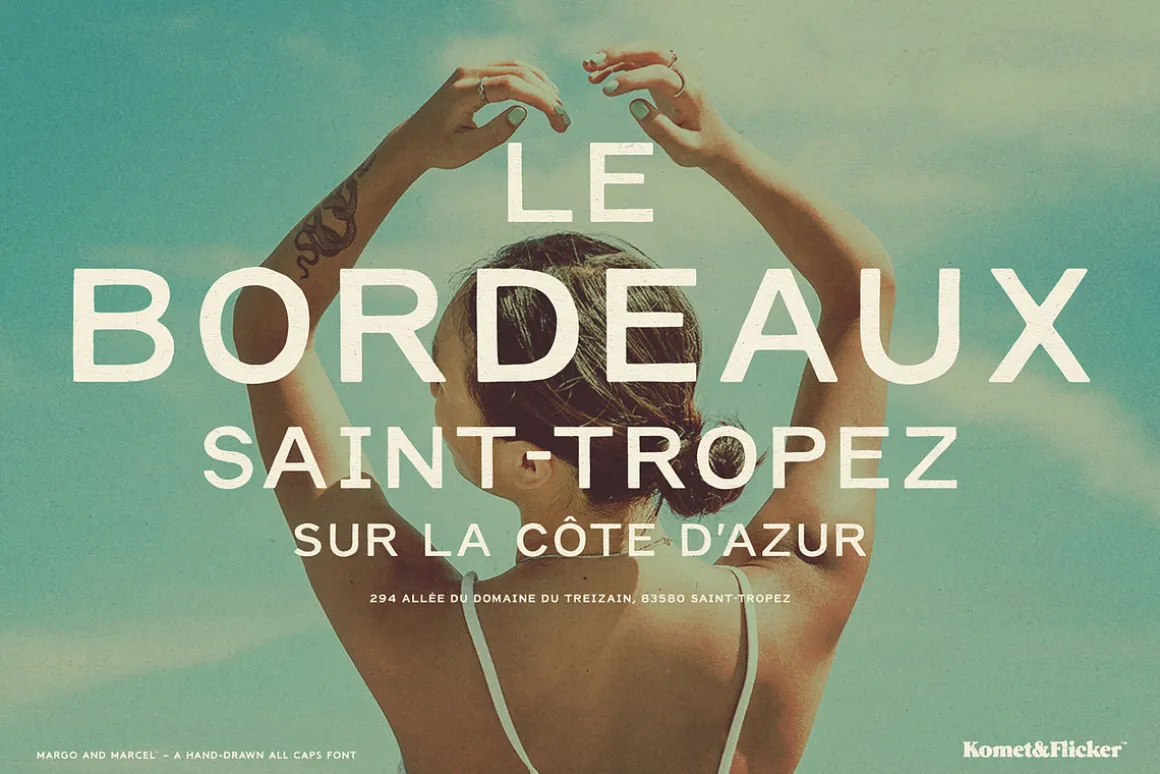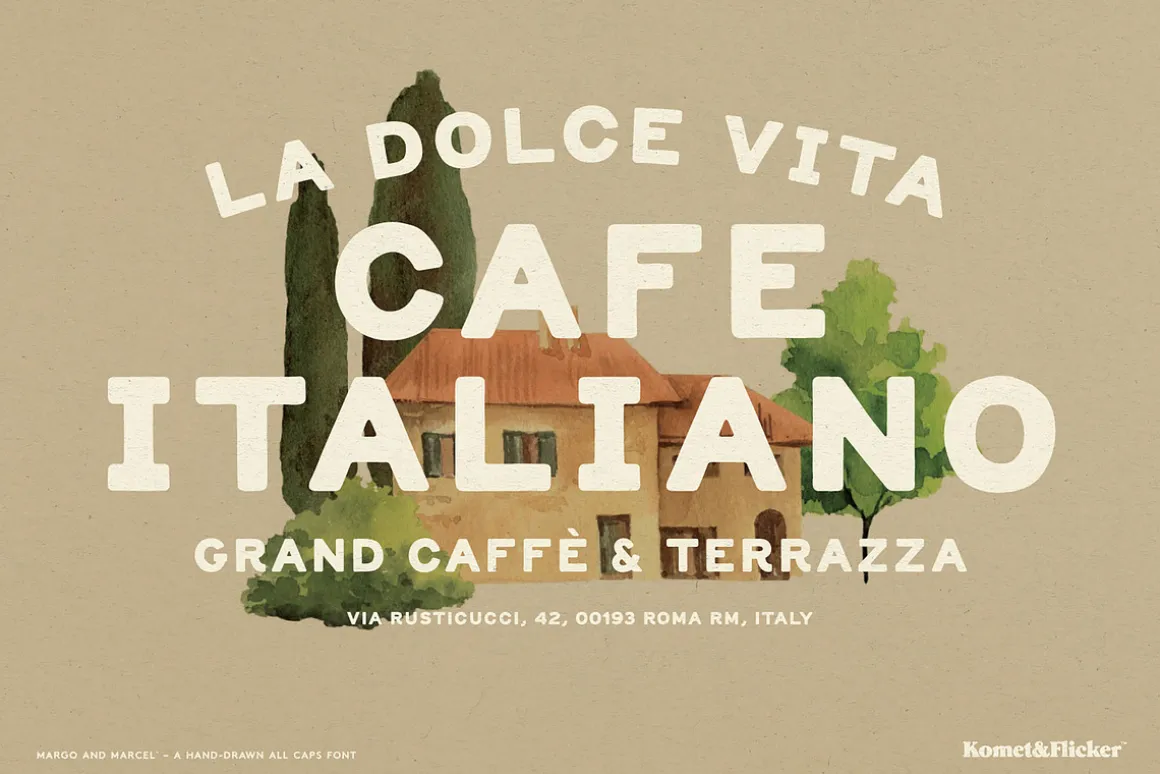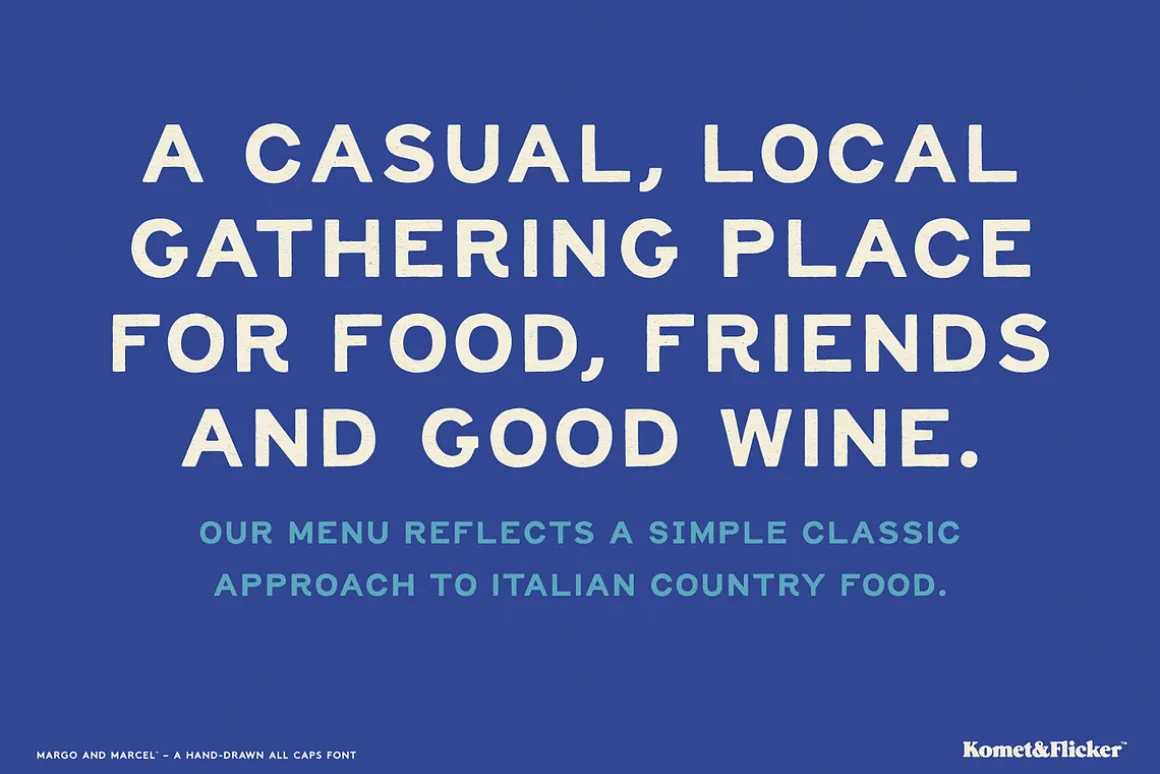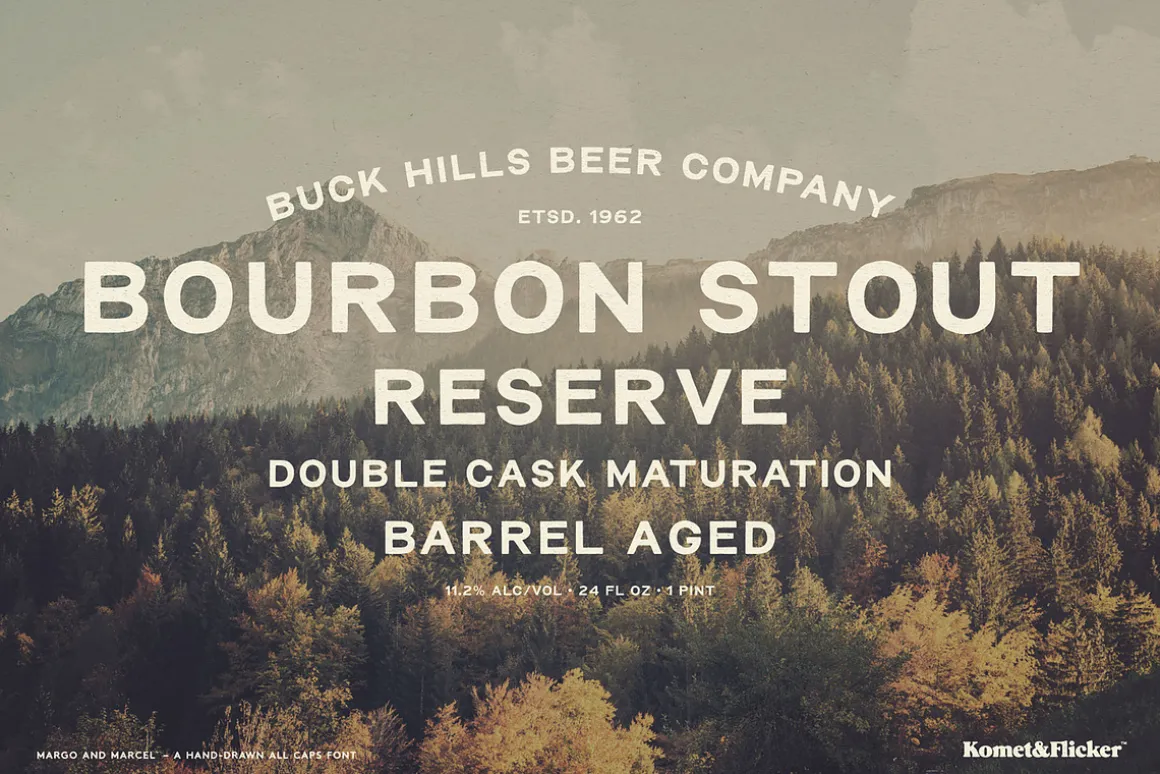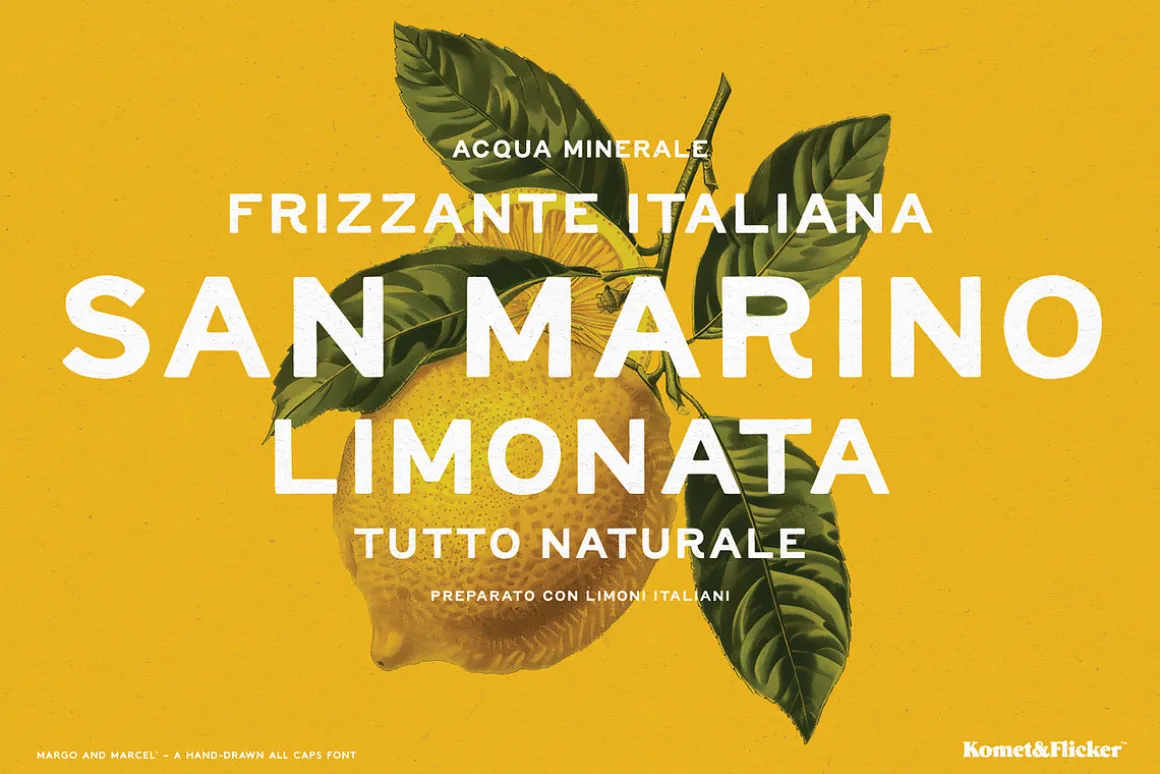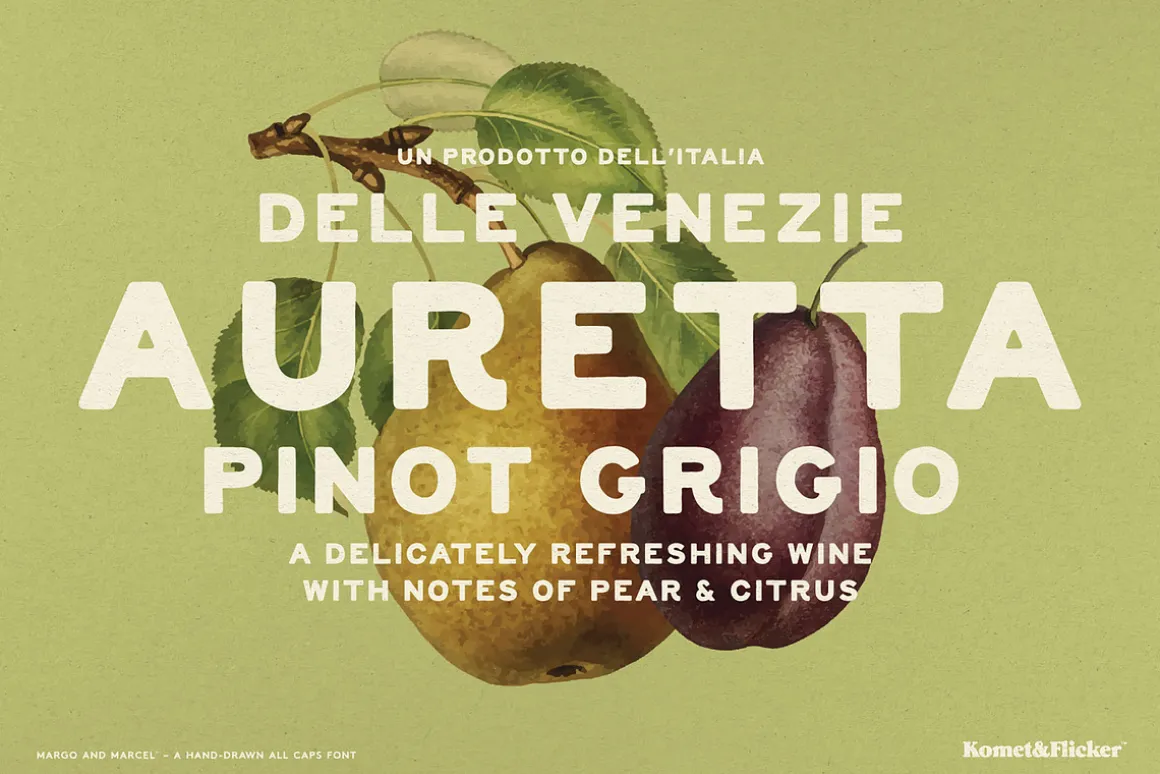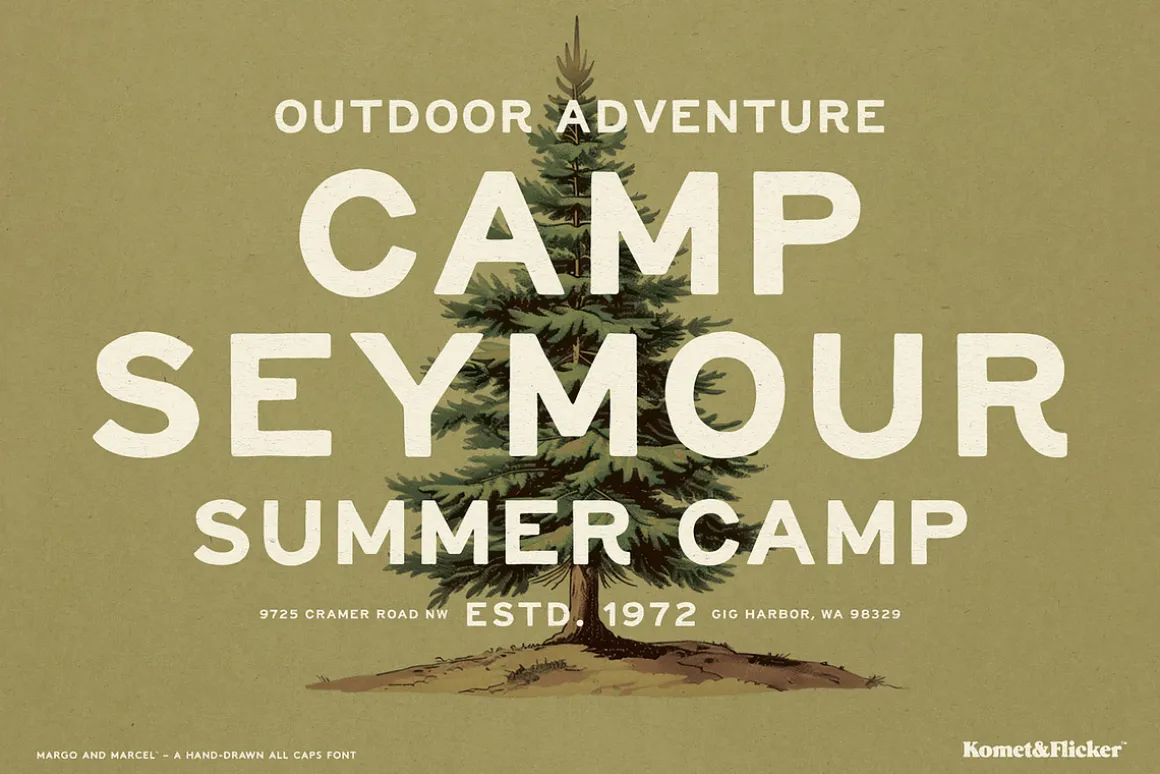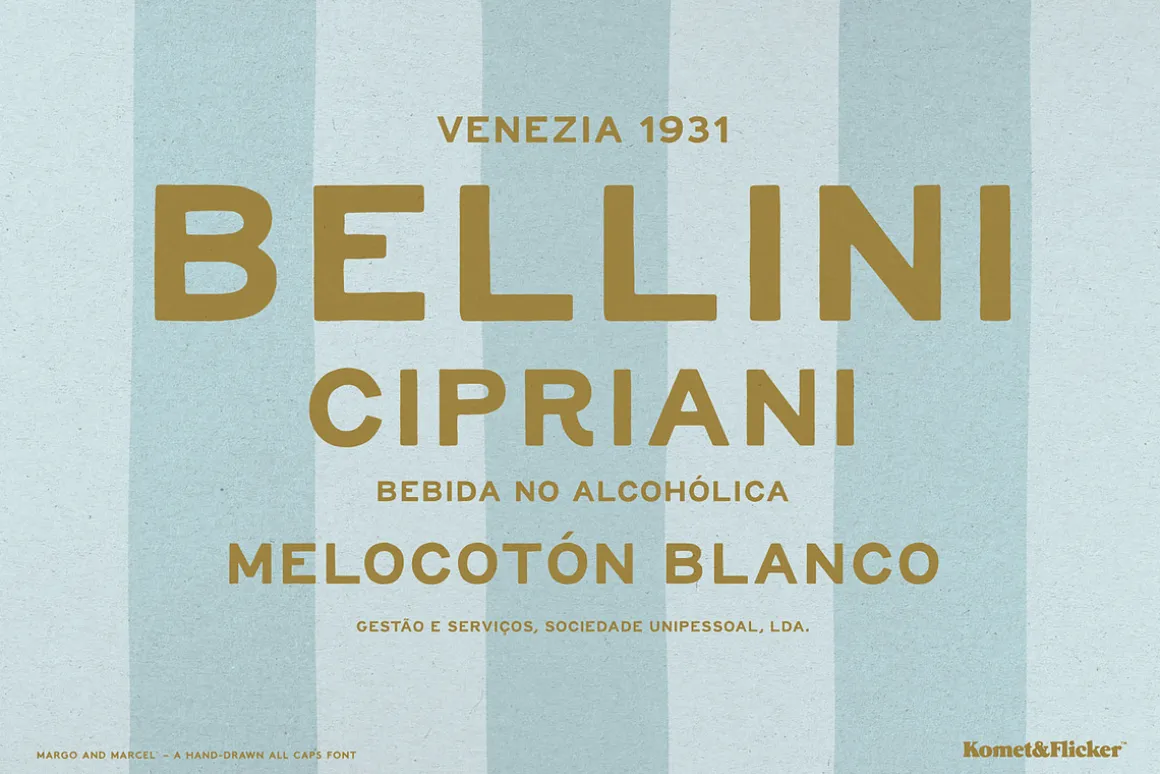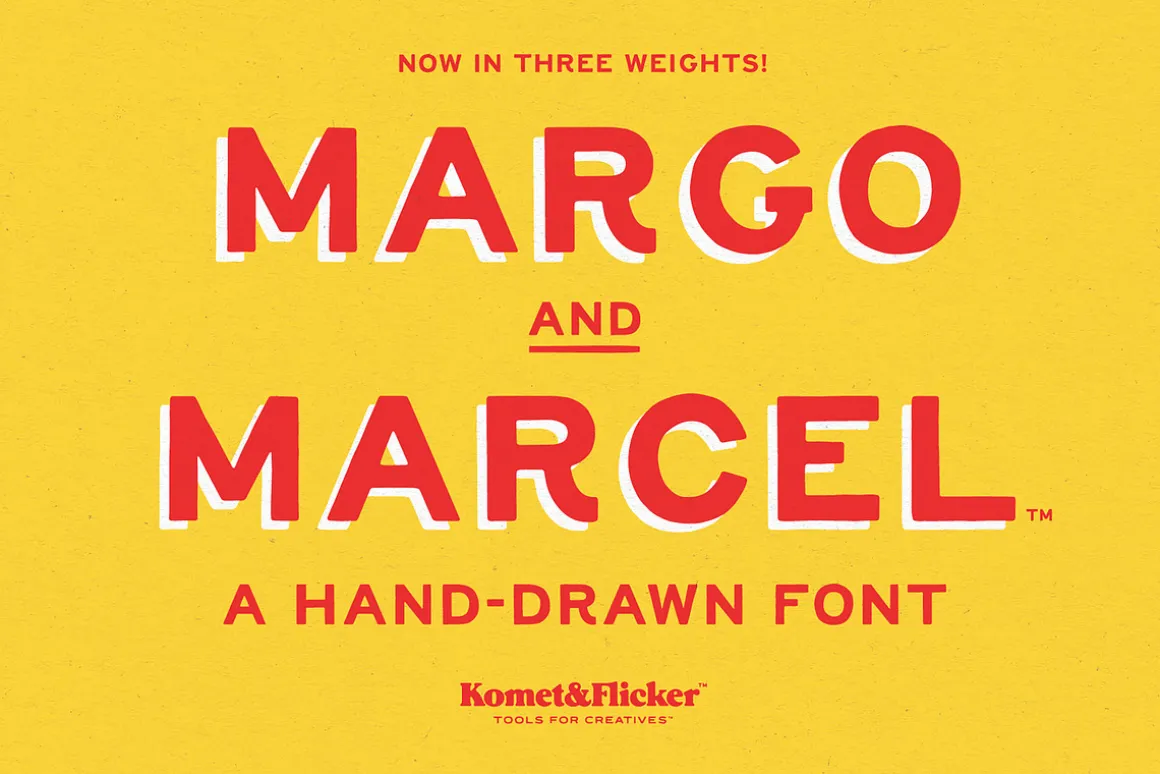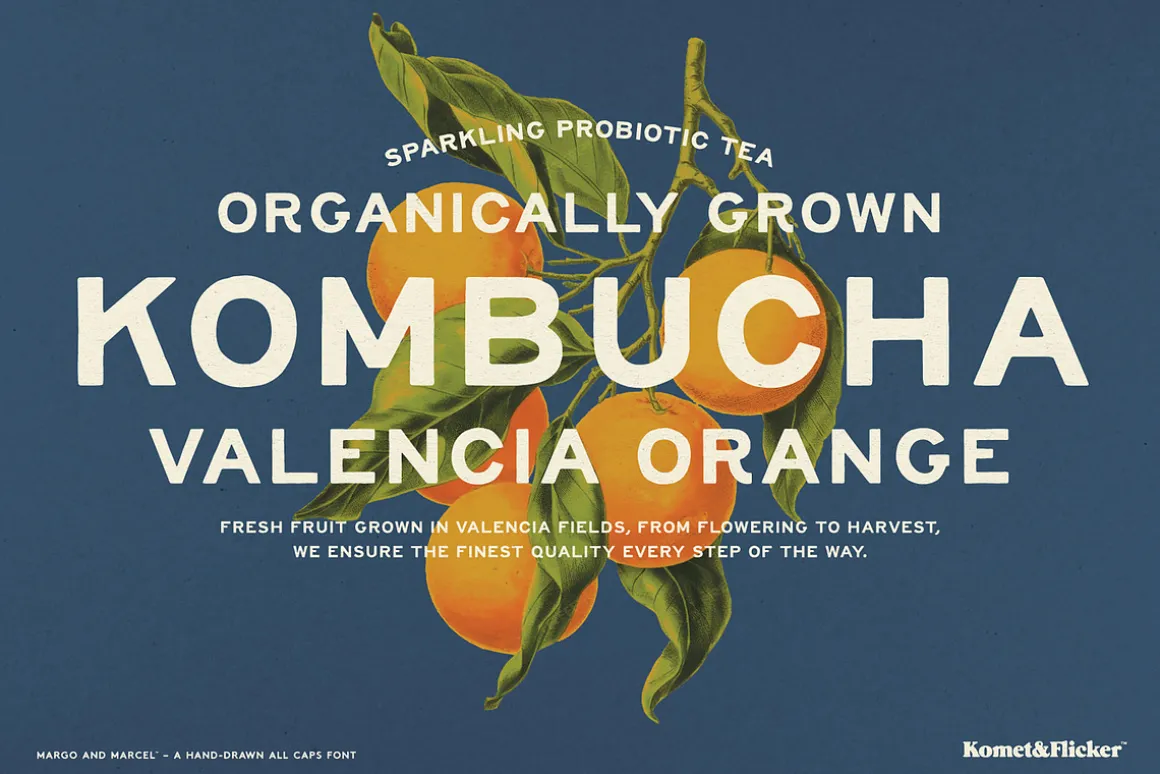
Say hello to Margo and Marcel, a charming all caps font with a friendly, down-to-earth vibe. Crafted to be both casual and approachable, this typeface brings a warm, human touch to your projects – perfect for anything from playful branding to relaxed layouts.
This font has been hand-drawn, giving the font an organic, slightly imperfect personality that makes it feel truly unique. And for extra versatility, it includes alternate versions of the characters: C, E, G, I, J, K, Q, R, and S.
Margo and Marcel also comes with a set of 11 custom connecting words (like AND, THE, WITH) designed to integrate with the rest of your text for added flair.
THIS FONT INCLUDES
- Full A-Z uppercase basic latin characters
- Select European specific characters
- Numbers, punctuation, and select symbols
- Two styles of pre-made common fractions
- Set of 11 custom connecting word glyphs